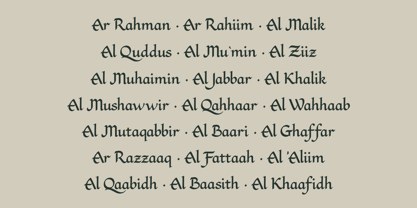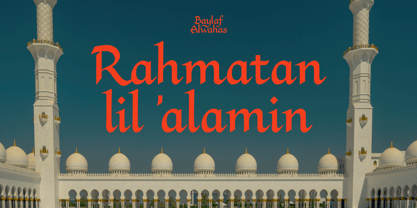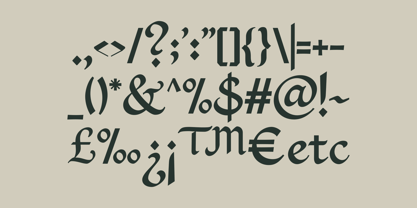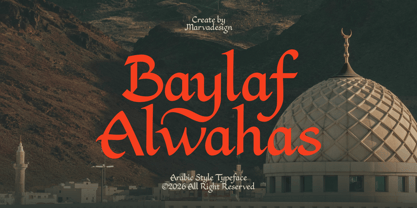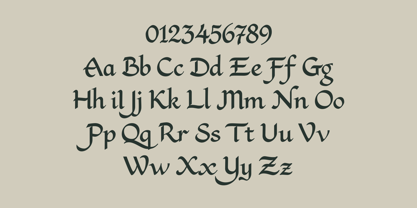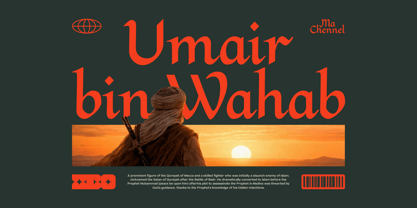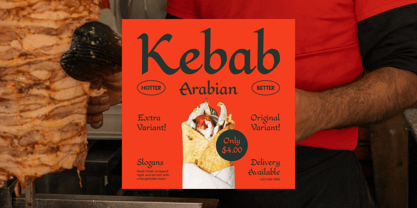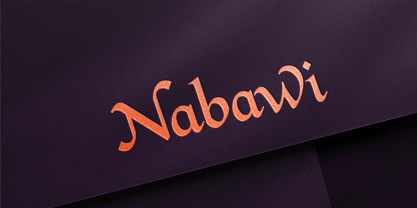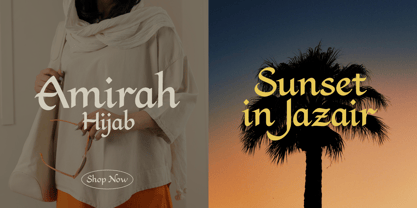
Baylaf Alwahas
by Marvadesign
The Baylaf Alwahas Font Family was designed by Febrie Setiawan and published by Marvadesign. Baylaf Alwahas contains 1 styles. More about this family
Baylaf Alwahas is an Arabic-style display typeface that blends classical Middle Eastern calligraphic influence with a contemporary serif structure. The font is characterized by its flowing curves, soft yet confident stroke contrast, and distinctive terminal details that evoke the elegance of traditional Arabic scripts while remaining fully legible in Latin characters. Its letterforms feel expressive and ornamental without being overly decorative, making the typeface visually strong and culturally rich. Designed to convey warmth, spirituality, and heritage, Baylaf Alwahas performs exceptionally well in headlines, titles, posters, and branding that seek an Islamic, historical, or Middle Eastern atmosphere. The subtle calligraphic rhythm gives each word a sense of movement and grace, while the balanced proportions keep compositions refined and modern.
Designers: Febrie Setiawan
Foundry: Marvadesign